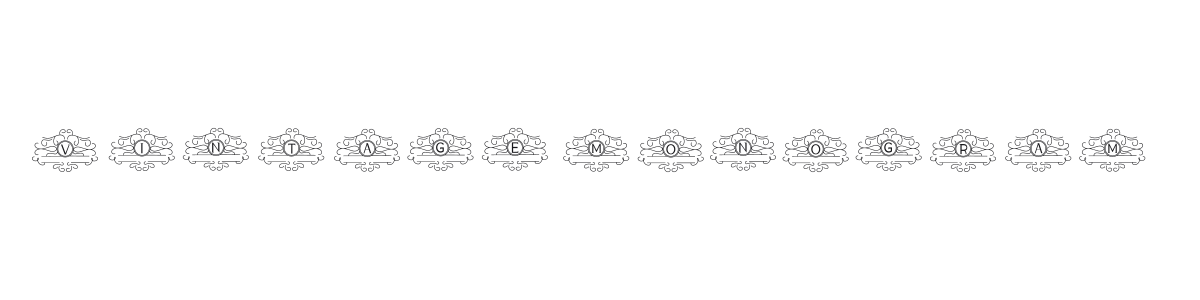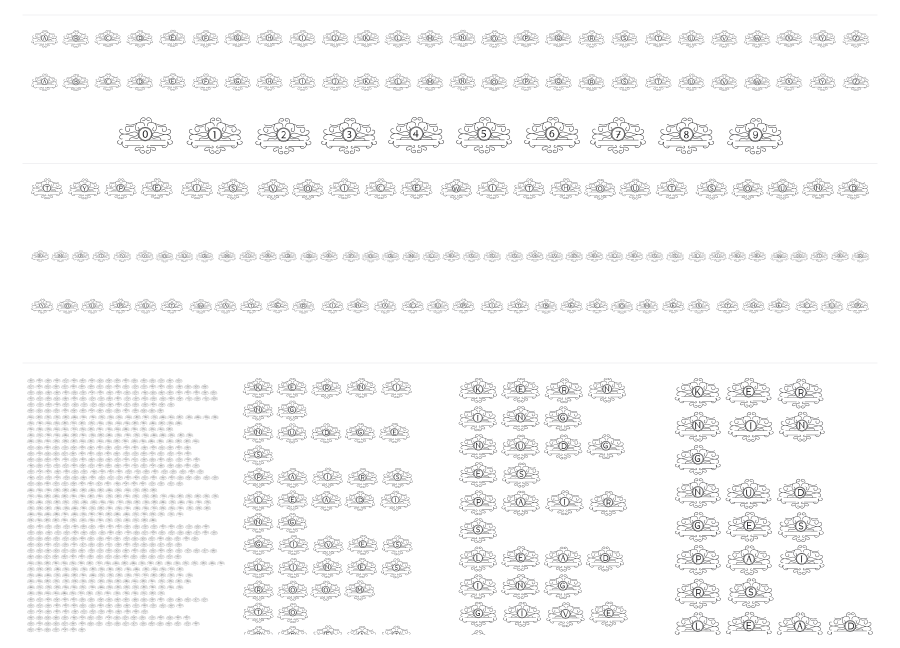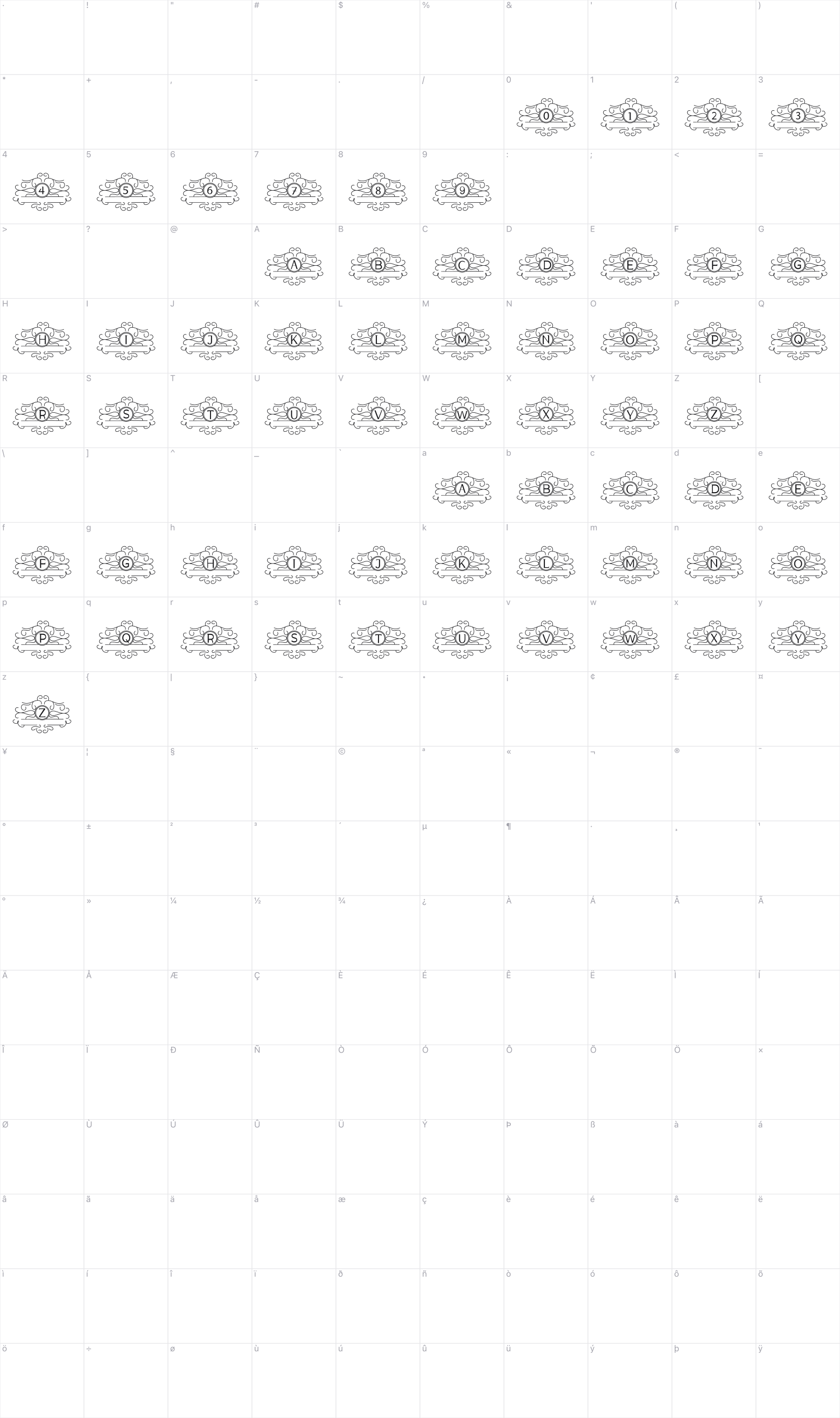
Vintage Monogram
Vintage Monogram is a decorative initials font from Letterday Studio that wraps each letter in an elaborate oval badge of scrolls and floral flourishes. The thin outline style gives it an engraved, old-world quality reminiscent of Victorian stationery and Art Nouveau embellishments. Each character functions as a self-contained emblem, making it a natural tool for wedding invitations, boutique branding, and luxury packaging.